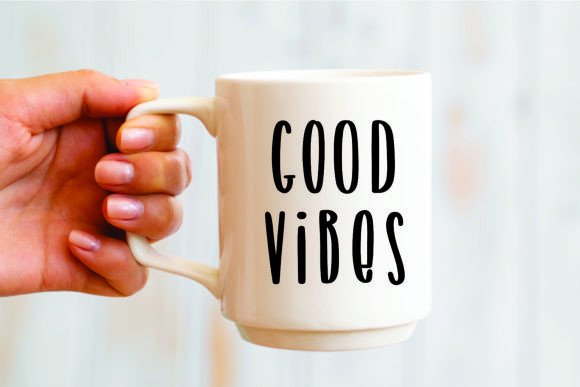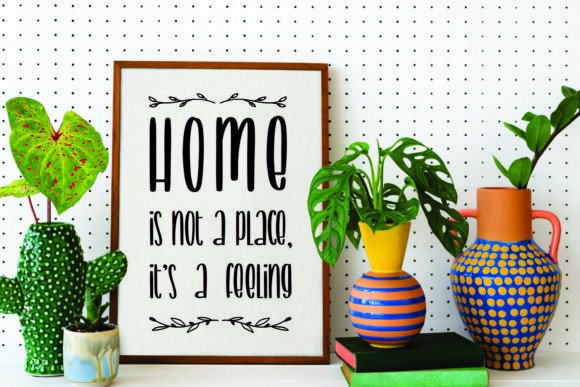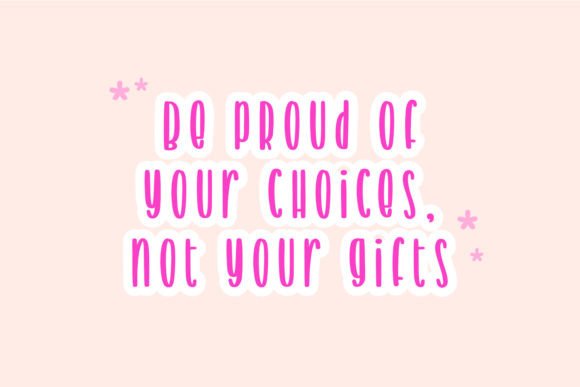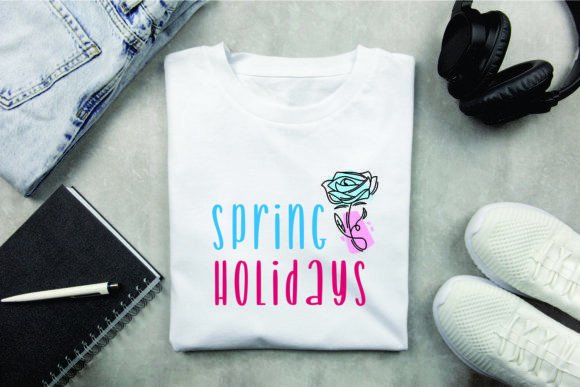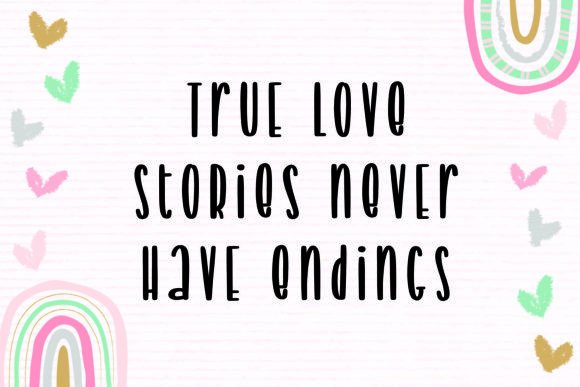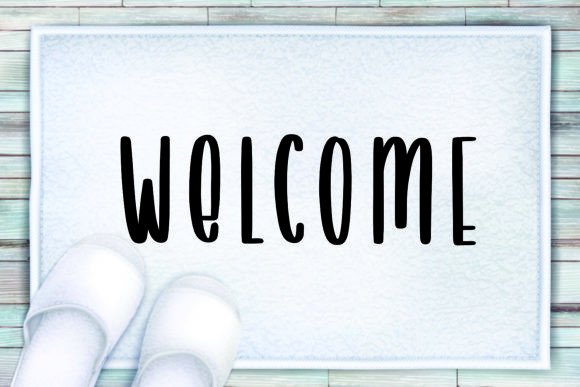
Introduction to Chicken Sandwich Font
Chicken Sandwich is a cute and fun handwritten font.
It is ideal for crafting, branding, decorating, farmhouse designs, shirts, SVG designs, branding, blogs, logos, invitations, and more .
Key Features of Chicken Sandwich Font